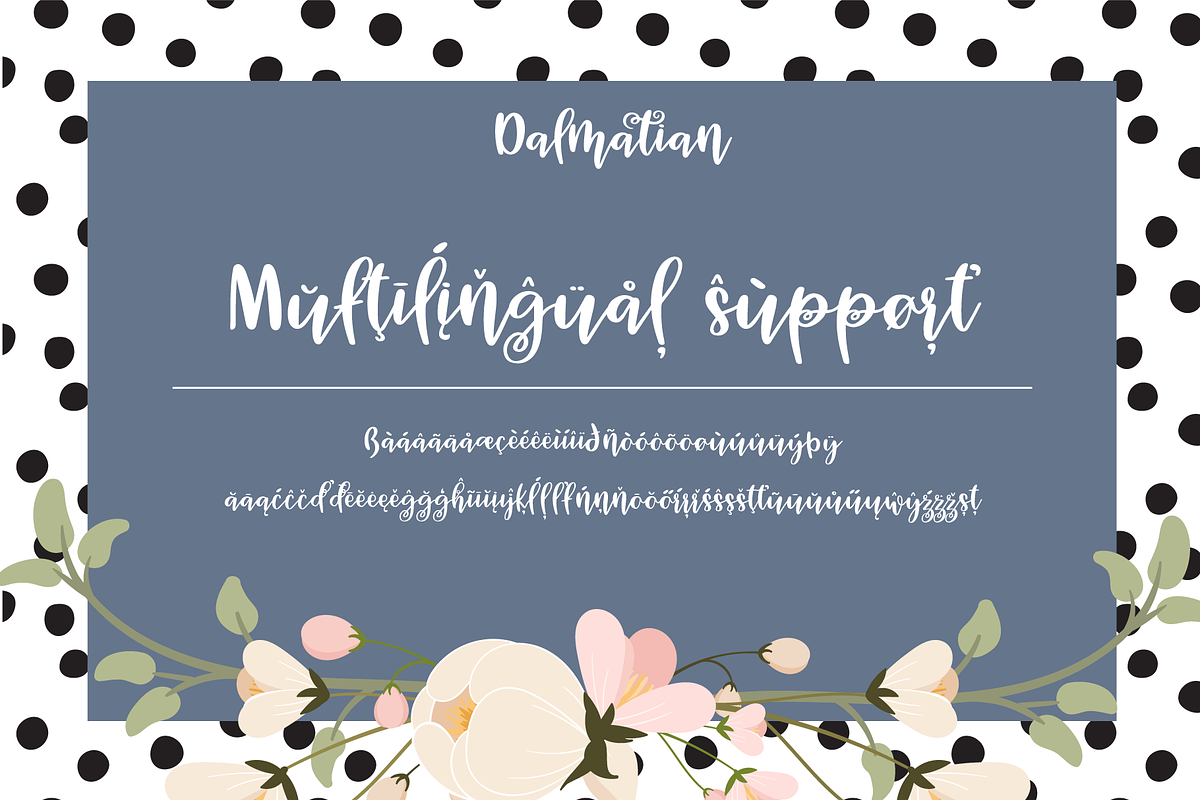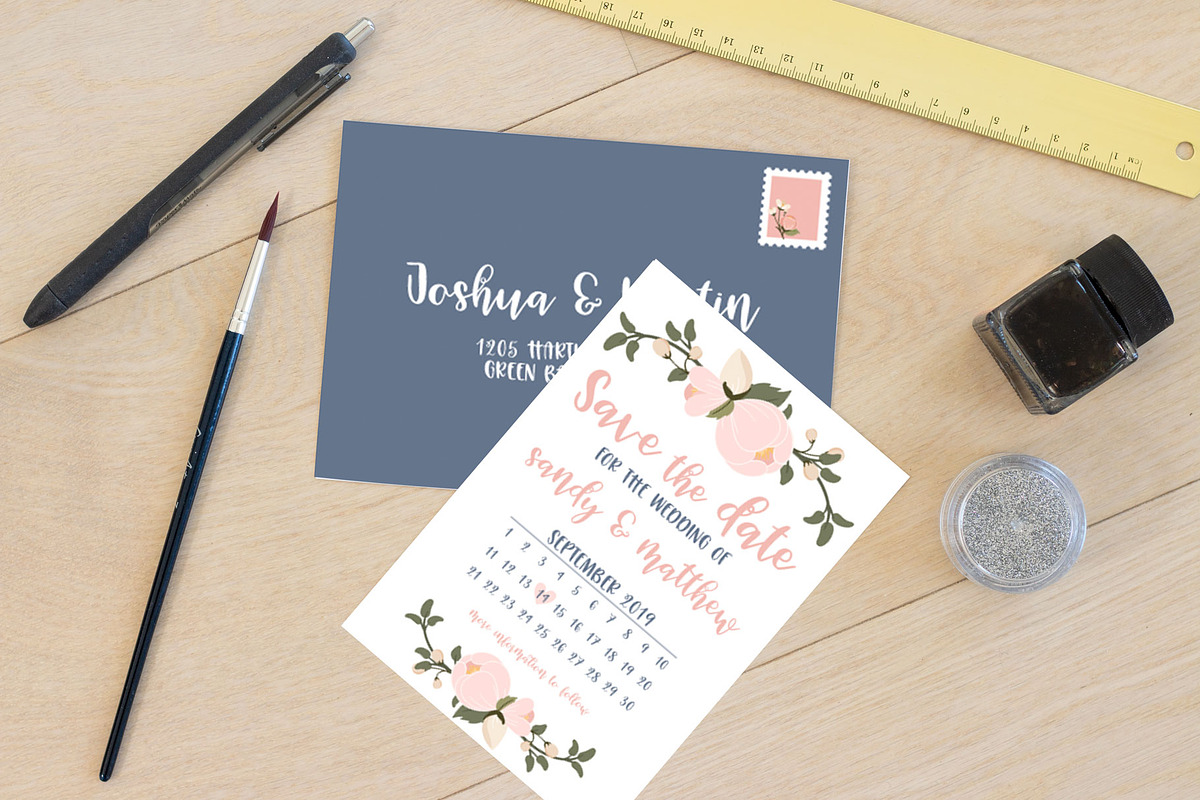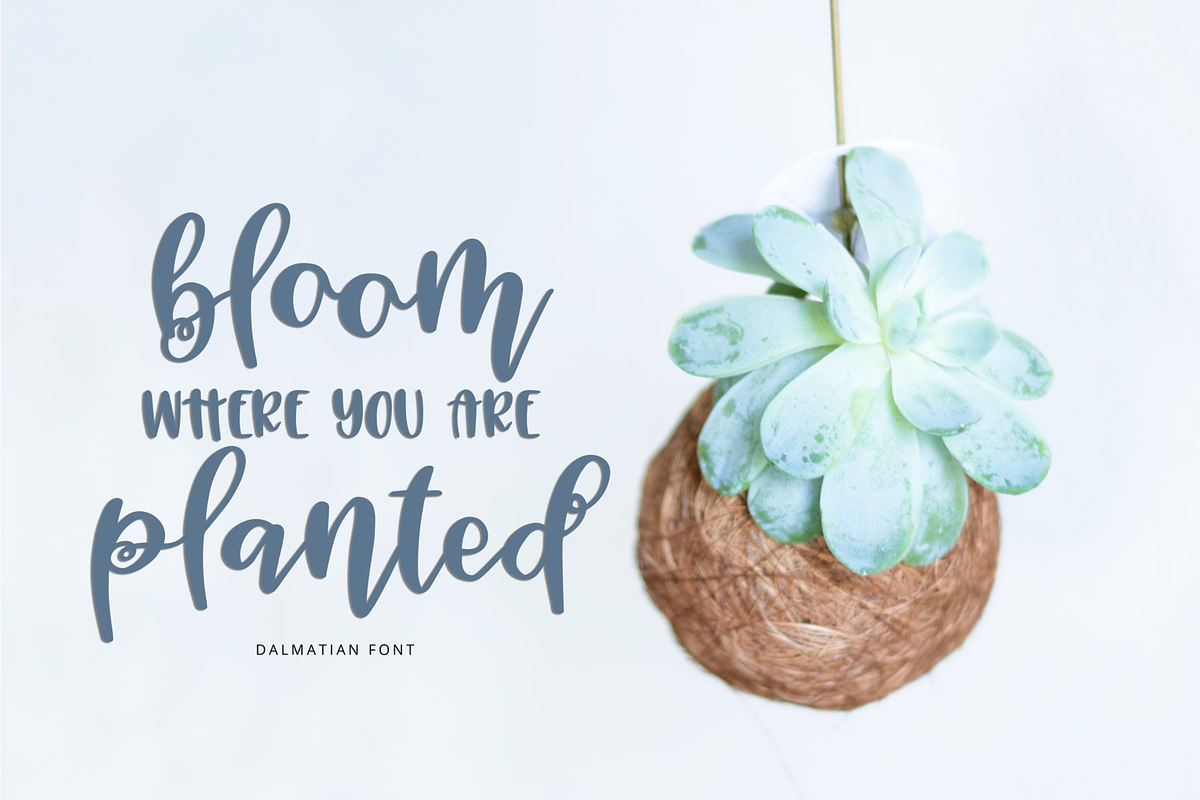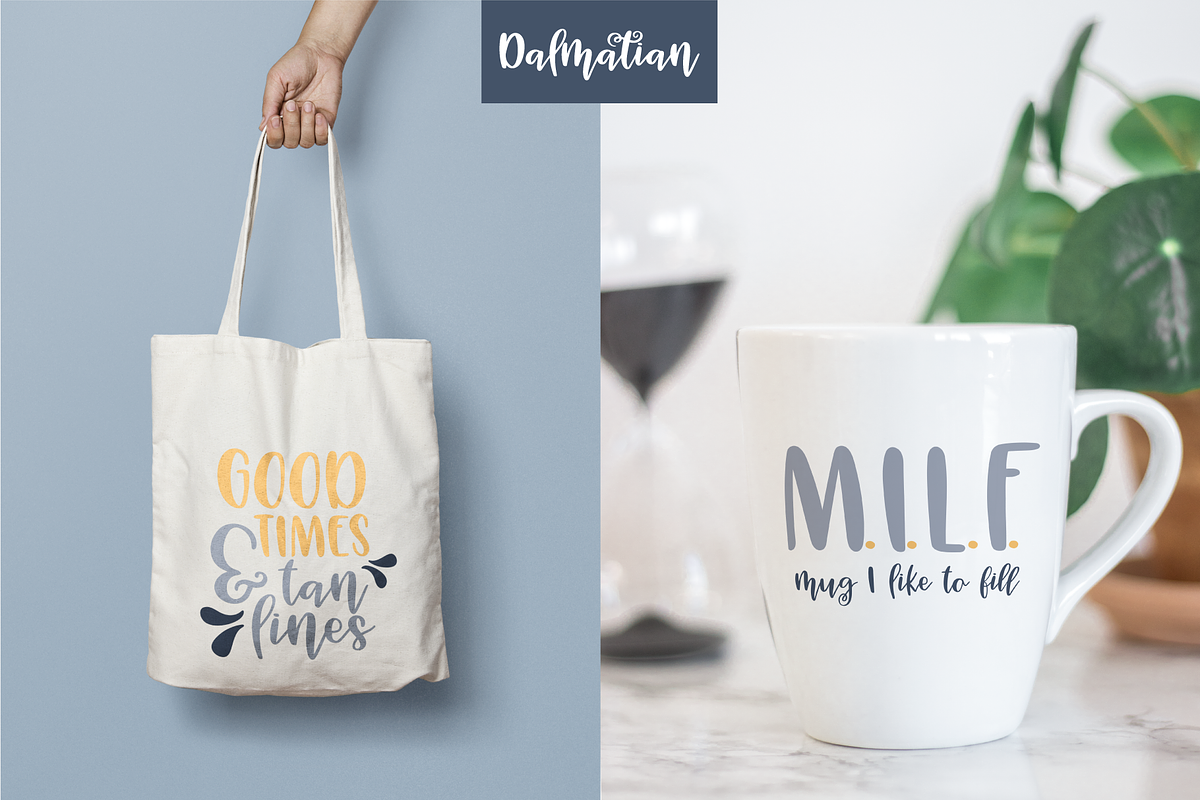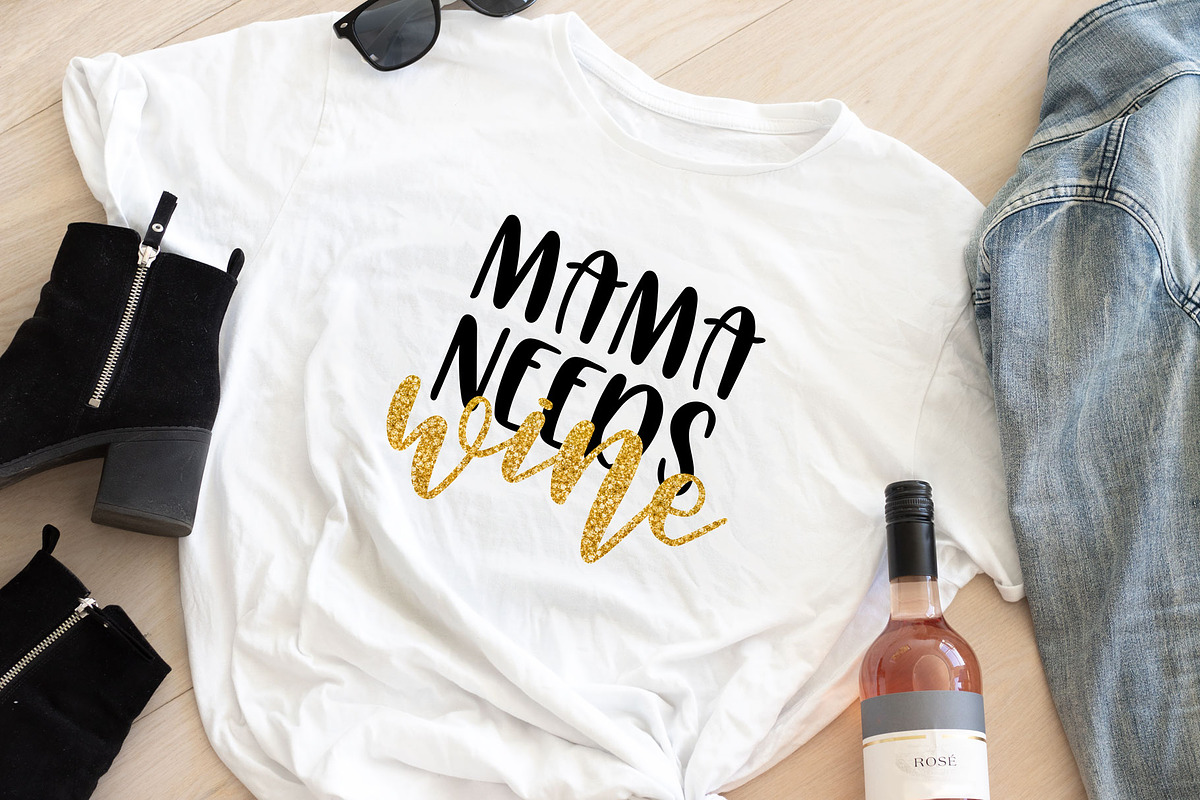
Dalmatian Script Font
A Beautiful hand lettered bouncy script font for all of your creative projects.
The Dalmatian font was created with crafters in mind. The letters are smooth, with a handwritten and bouncy style.
Use the font to create projects, such as invitations, t-shirts, mug designs, tote bags, posters, quotes and more. The Upper and lowercase are beautiful on their own, which gives you the option to use the font as a font duo.
Ligatures: ll, oo, ee, ss, tt,
Special t and initial r
The font includes multilingual support. You can see all the accented letters on the last preview picture, or simply test the font in the preview below.